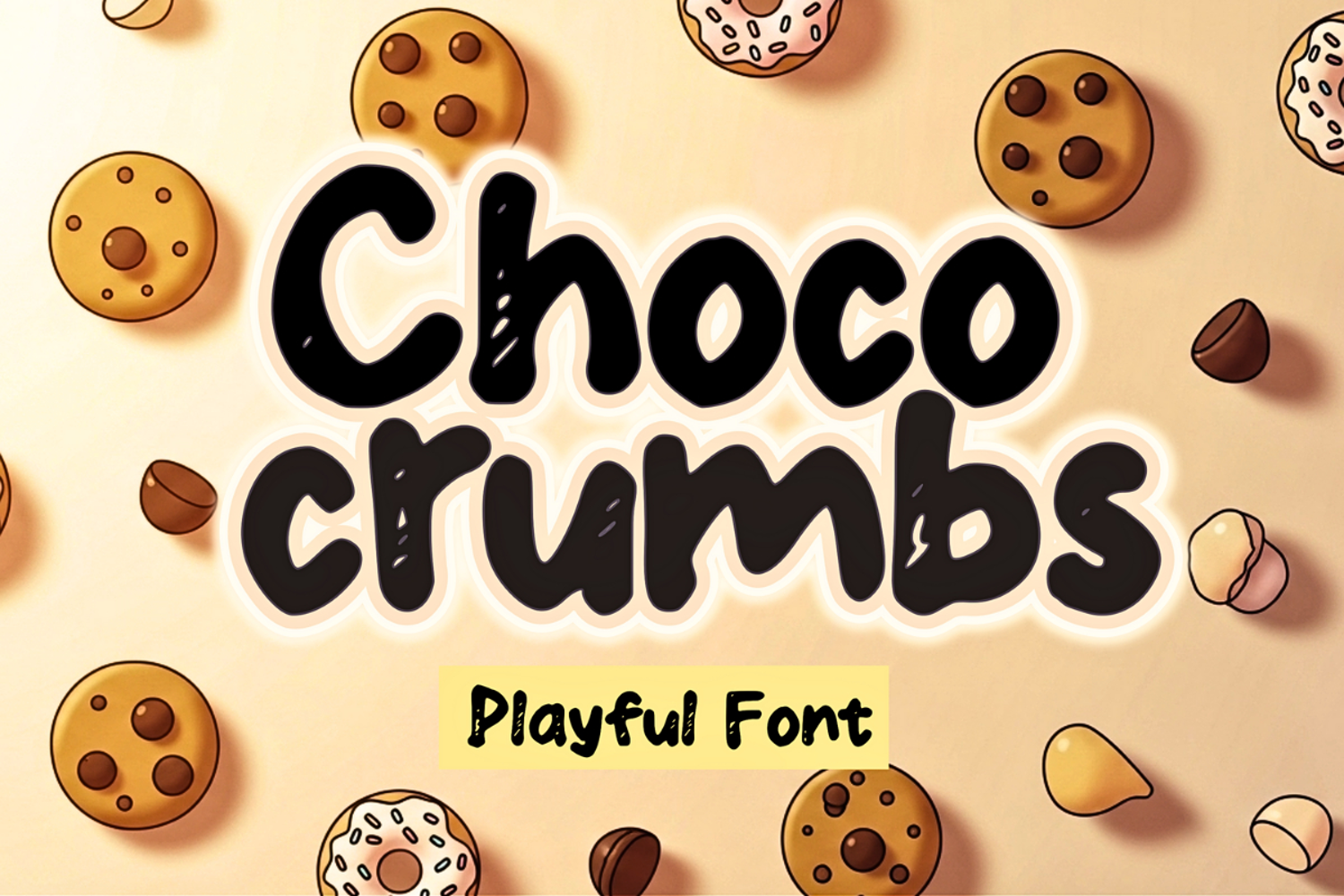
Choco Crumbs
Choco Crumbs is a playful display handwriting font that brings a sprinkle of sweetness to every design. With its bold, and friendly letterforms, this font feels like doodles made of chocolate chips! Perfect for kids’ projects, cute logos, packaging, posters, and any design that needs a cheerful, handmade touch.
Use Choco Crumbs to add a warm, delicious vibe to your creative work — it’s fun, tasty, and full of personality!